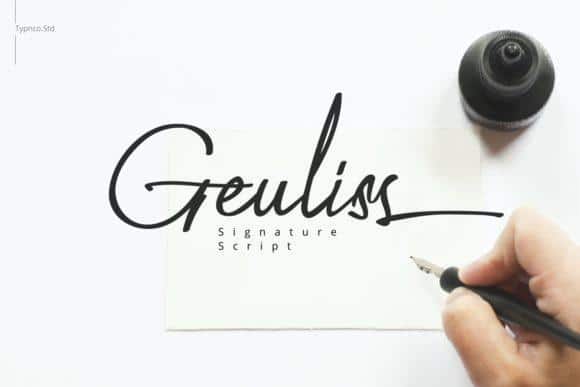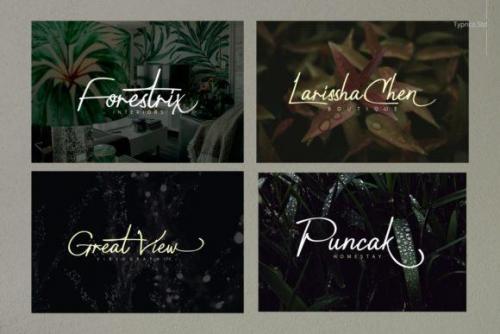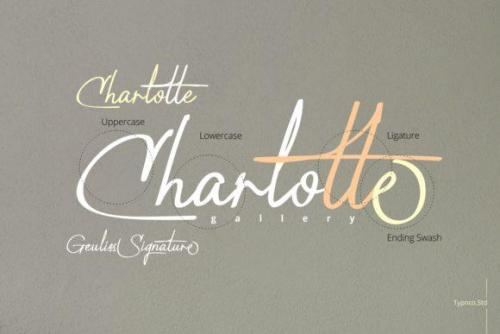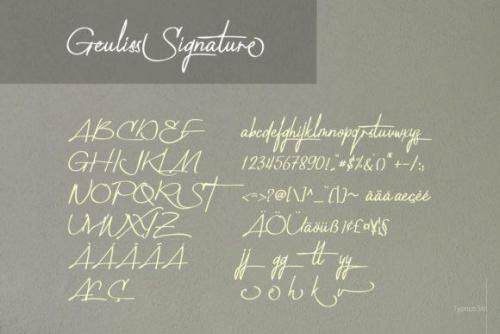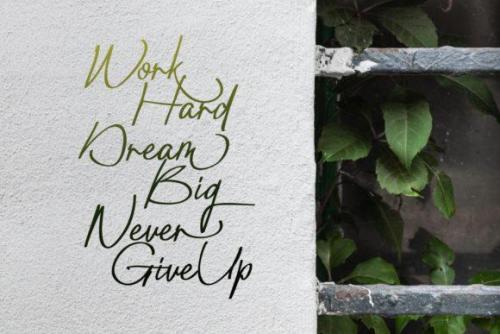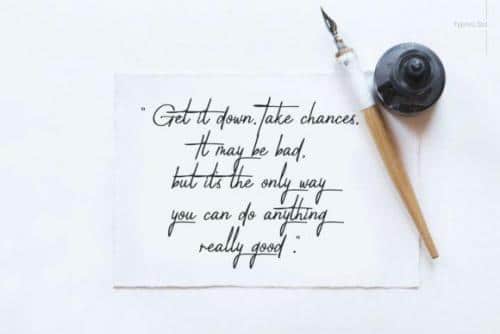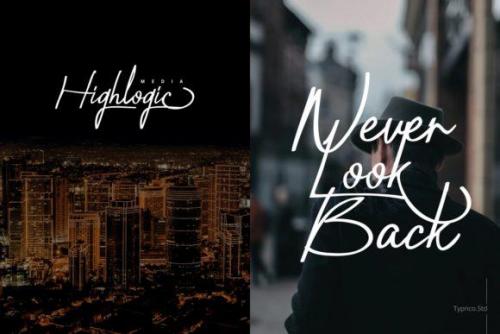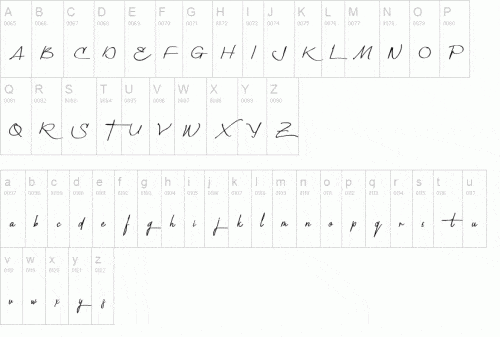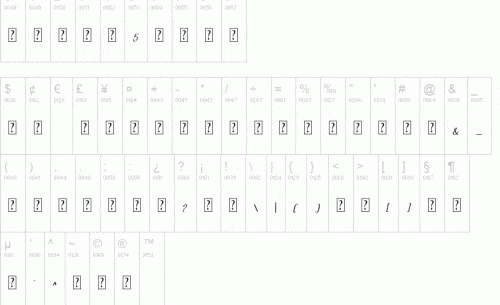
Geuliss is a stylish script font with a classy handwriting touch that gives you a personal signature feel. Every single letter has been carefully crafted to help make your design look beautiful and elegant.
This font is suitable for any modern or classic designs, such as Signature logos, Branding, Invitation, Blog Headline, Quotes, prints, scrapbooking, and any projects that need handwriting taste. This font is PUA encoded which means you can access the available glyphs and swashes with ease!